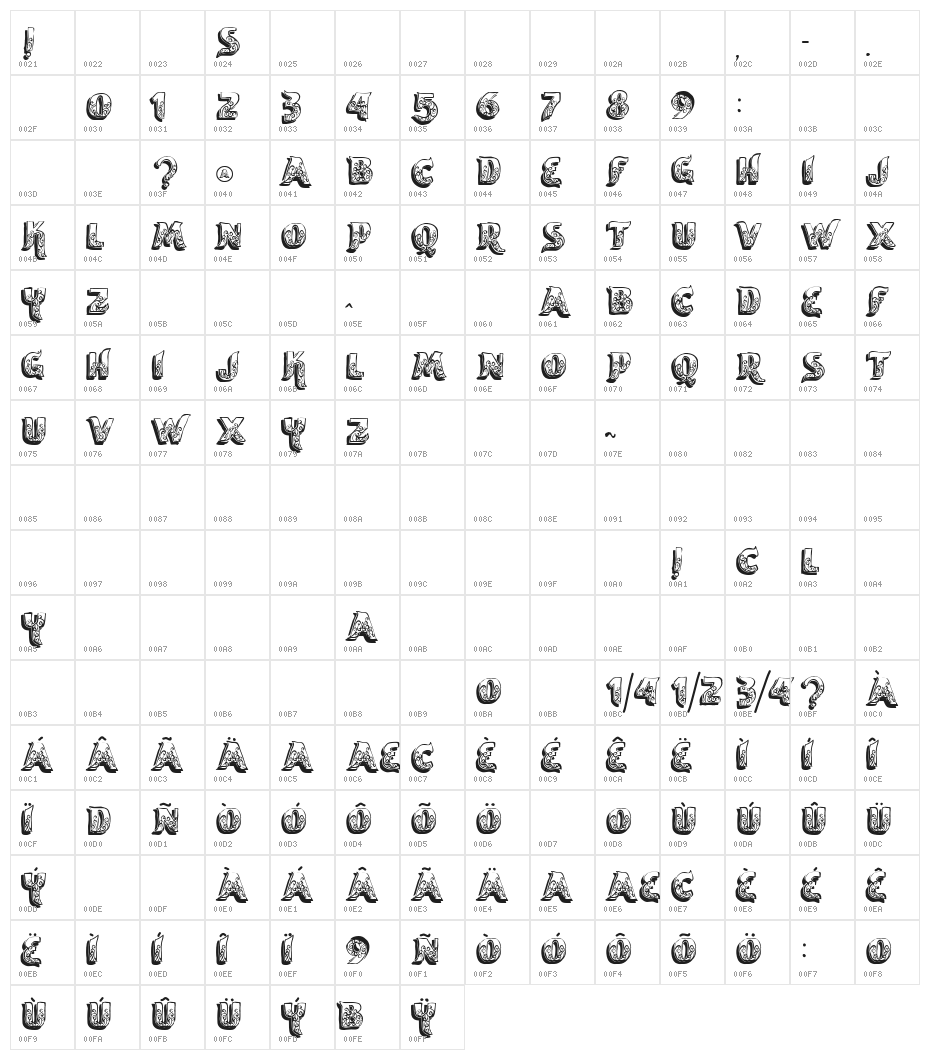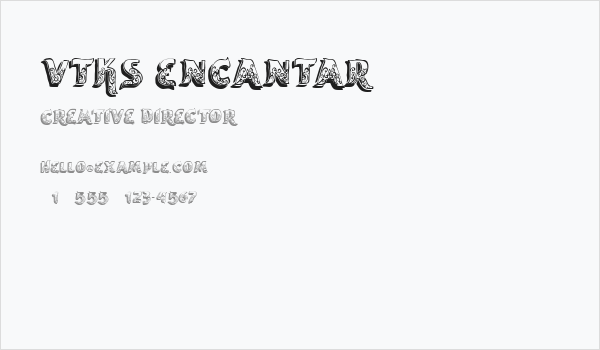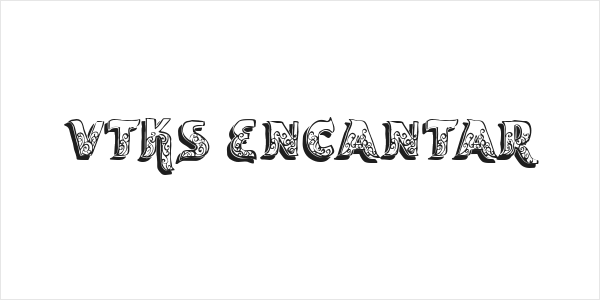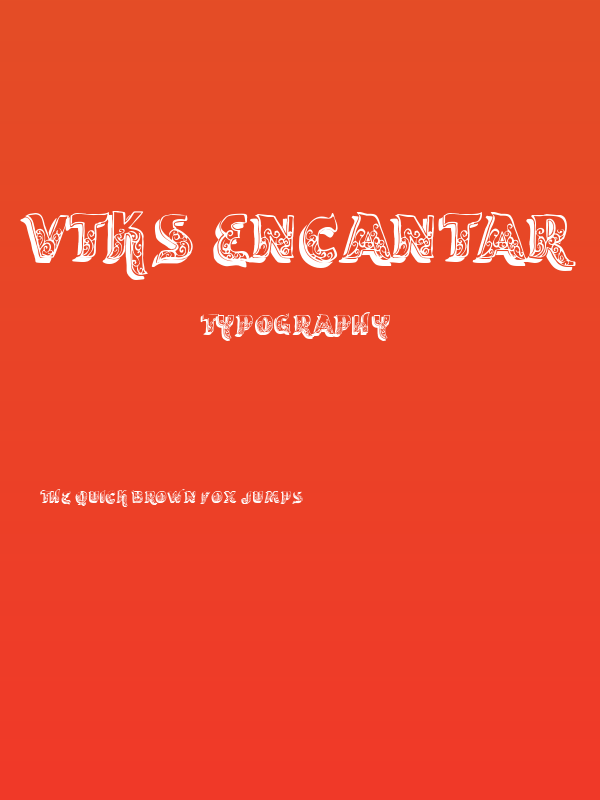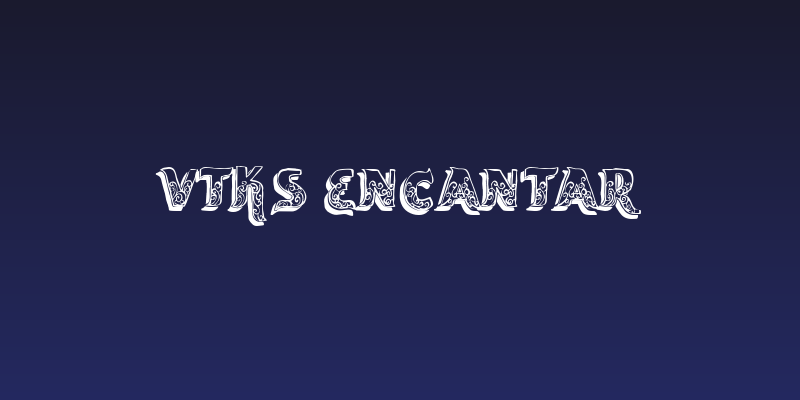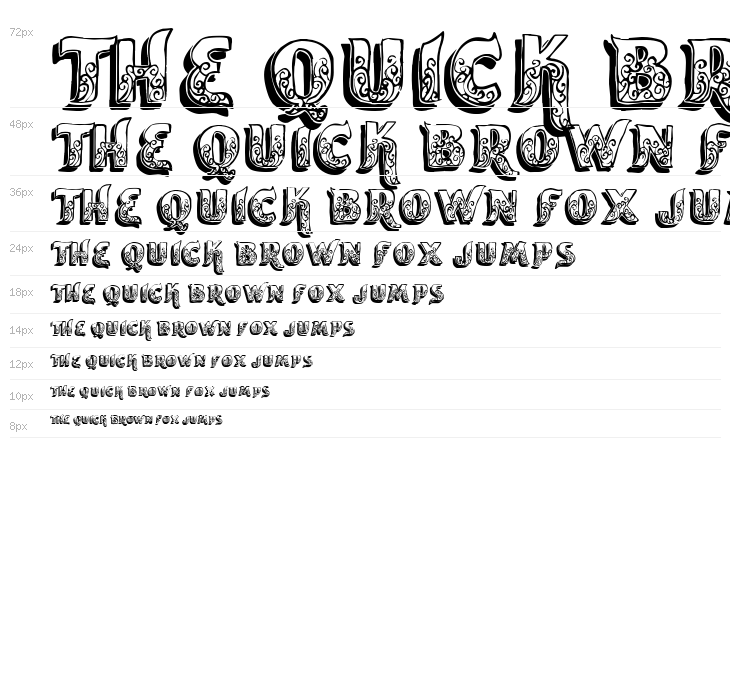
vtks encantar Font
vtks encantar Description
This font features an ornate and decorative style, characterized by intricate floral and vine-like patterns within each letter. The bold and elaborate design gives it a unique and artistic appearance, making it stand out for creative projects. The uppercase and lowercase letters maintain a consistent decorative theme, with each character adorned with detailed embellishments. The numbers and special characters follow the same ornate style, ensuring a cohesive look across all elements. This font is perfect for projects that require a touch of elegance and creativity, such as invitations, posters, and artistic branding.
| Use Case | Headlines, Logos, Artistic designs |
| Proposed Projects | Ideal for invitations, artistic branding, posters, and creative designs. |